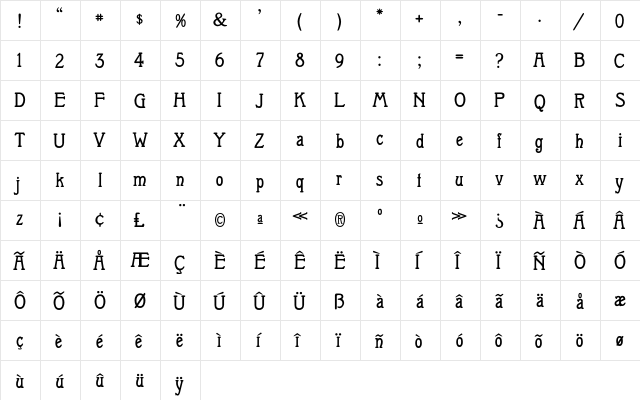
Medina Regular Font Preview
Medina Regular
Design Context for Medina Typeface
Medina takes a measured approach to typography — its balanced proportions and neutral character make it a reliable workhorse for both digital and print work.